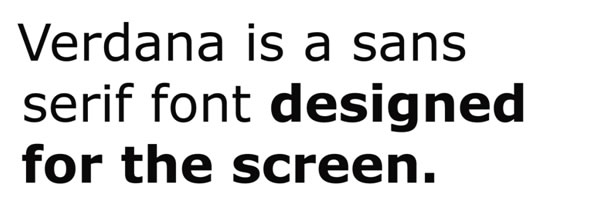
Fonts for the Screen
The square grid of the screen presents a new kind of challenge to font designers. Type designers have had to design letters which fit into the pixel grid presented by various electronic devices. Screen fonts are fonts which are specially designed considering the limitations of a pixel grid. Their intended use is for display on digital devices. In some low end devices such as mobiles, bitmap fonts are used instead of vector fonts.
Common examples given for fonts that are designed for the screen are:
• Verdana and
• Georgia
Figure 1: Verdana is a sans serif font designed by Matthew Carter.
Figure 2: Gill Sans is a font which was designed by Eric Gill before the use of DTP computers.
Figure 3: Compare x-heights of the fonts, both the fonts are at the same point size.
Figure 4: Compare x-heights of the fonts, both the fonts are at the same point size.
In the above figures we have shown fonts which are largely used for print and fonts which are specially designed for the screen. Compare the visual features of these two typefaces, and try and deduce what design features differentiate the two kinds of fonts. As a hint we could begin by comparing the horizontal and vertical proportions (such as x-heights) of the two kinds of fonts.
Figure 5: Note differences in characters such as lowercase l and upper case I and the numeral 1.
If we study Verdana, we realize that its legibility at small point sizes can be attributed to many factors.  Its basic shape is derived from a square grid. Along with this it is more loosely spaced which helps legibility at small sizes. The bold version of the font is also darker than print based fonts. Letters such as j I l, I and 1 have been designed so that they can be easily differentiated.
Besides the visual features, screen fonts are hinted. Font hinting is the process in type design where set of instructions are embedded in a font so that the computer can adjust the drawing outlines on a small raster grid. Hinting is especially used to make fonts more legible on low screen resolutions. One important factor for the clear legibility of screen fonts is the quality of hinting that they have.
Q9. List out the visual design features in screen fonts such as Verdana and Georgia that make them more legible on the screen as compared to print fonts.
Q10. Verdana and Georgia were fonts designed for the screen in the 90’s. Find out and list down fonts designed for the screen in recent years.
Q11. Explain the phenomena of hinting. What is its purpose? How is hinting actually done?